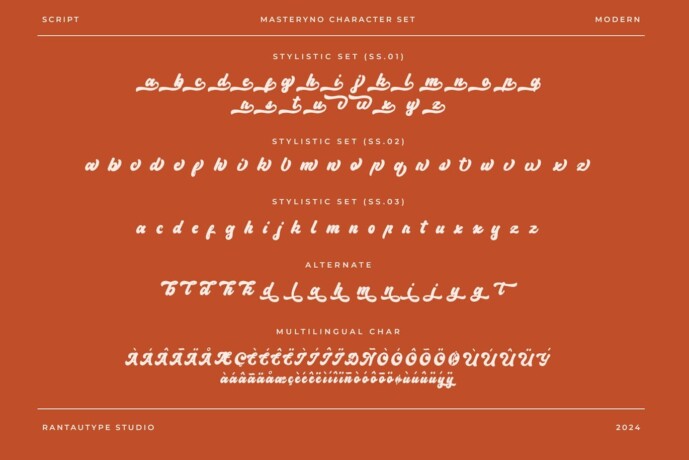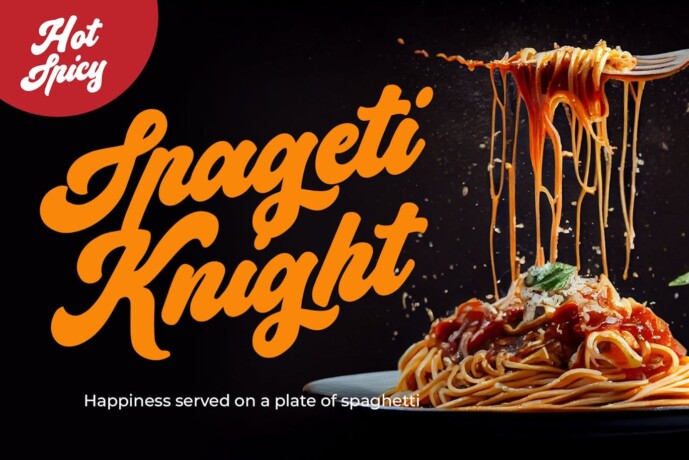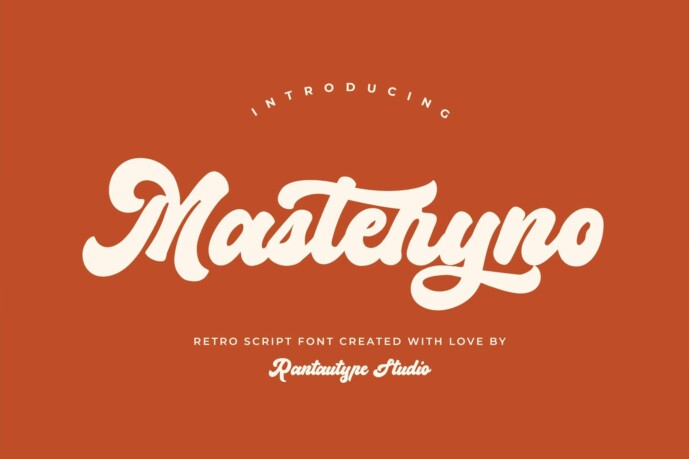
Masteryno Font
Masteryno Font is a retro script font with a grovy mid-century vibe. Masteryno brings a soft shape and a fluid curve, it is ideal for design projects that want to create a nostalgic touch.
Masteryno is the ideal choice for any creative, chic and lifestyle design project such as logos, titles, watermarks on a photograph, cover, branding, display and magazine, wedding event, corporate branding, quotes, cover album, business card, professional project and many other design projects with a retro or nostalgic taste.